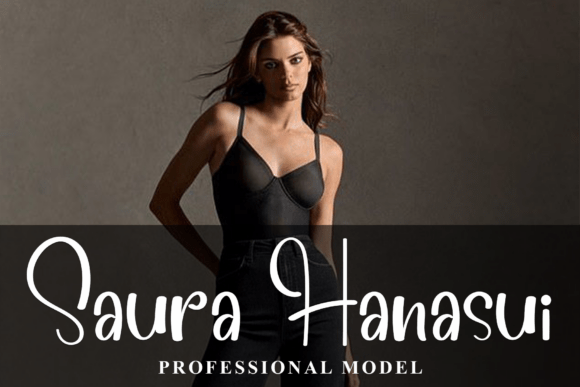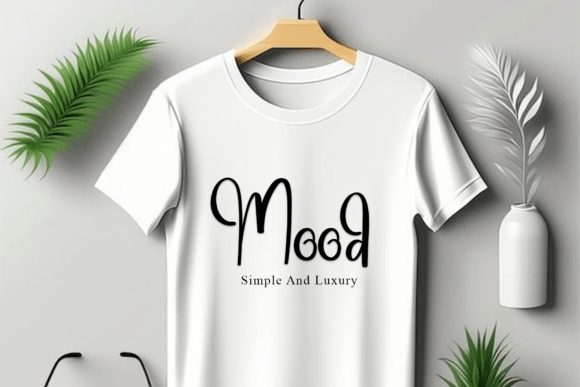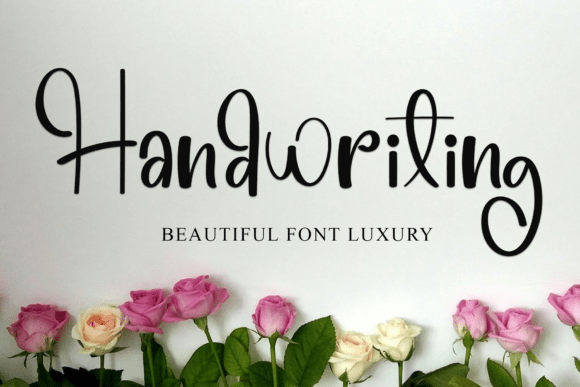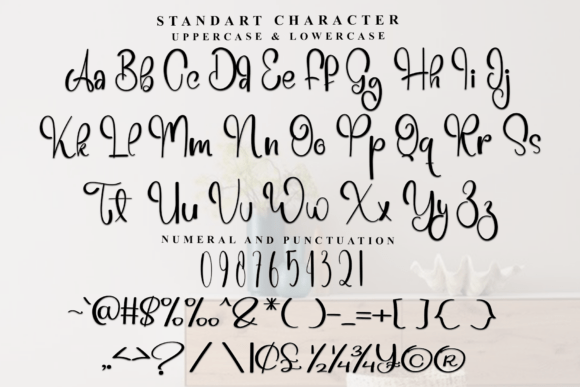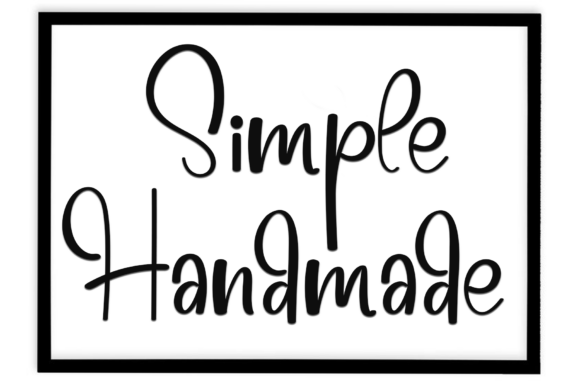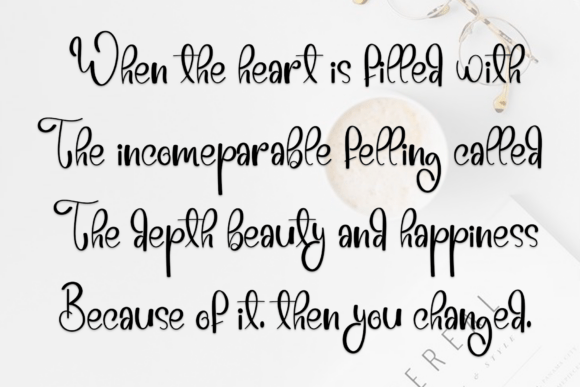
Discover the Magic of Awesome Wonderhand Font: Elevate Your Designs with a Unique Touch
In the world of typography, a good font can make all the difference in elevating your designs from ordinary to extraordinary. If you’re a designer, crafter, or creative looking for a font that stands out from the crowd, look no further than the Awesome Wonderhand Font. This beautiful and eye-catching font is designed with a soft, unique touch that adds a special character to any project.
The Distinctive Strokes of Awesome Wonderhand
What sets Awesome Wonderhand apart from other fonts is its distinctive strokes, which give it a special character that makes it both meaningful and versatile. The font’s unique design makes it perfect for a wide range of creative projects, from design and crafts to other artistic endeavors. Whether you’re working on a logo, brochure, or social media graphics, Awesome Wonderhand is sure to make your designs shine.
A Font for Every Creative Project
One of the best things about Awesome Wonderhand is its versatility. The font comes with a wide range of characters, making it perfect for various design projects. Whether you’re working on a children’s book, a craft project, or a professional design, this font has got you covered. Its natural and soft style makes it ideal for creating visually appealing designs that will capture the attention of your audience.
Compatibility and Ease of Use
Awesome Wonderhand is a dream come true for designers and crafters. Its unique and eye-catching design makes it perfect for creating stunning visual content. Whether you’re a professional designer or a DIY crafter, this font will help you create designs that stand out from the crowd. Use it to create beautiful signs, posters, or social media graphics that will grab the attention of your audience.
Enhance Your Designs with Awesome Wonderhand
With Awesome Wonderhand, you can take your designs to the next level. The font’s soft and natural style makes it perfect for creating visually appealing designs that will resonate with your audience. Whether you’re working on a branding project, a marketing campaign, or a personal project, this font will help you create designs that are both beautiful and effective.
Why Choose Awesome Wonderhand?
So, why choose Awesome Wonderhand over other fonts? Here are just a few reasons:
- Unique Design: Awesome Wonderhand has a distinctive and eye-catching design that sets it apart from other fonts.
- Versatility: The font comes with a wide range of characters, making it perfect for various design projects.
- Unique and eye-catching design
- Soft and natural style
- Wide range of characters